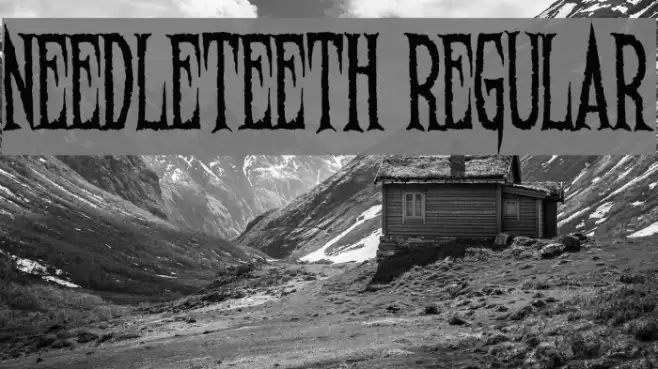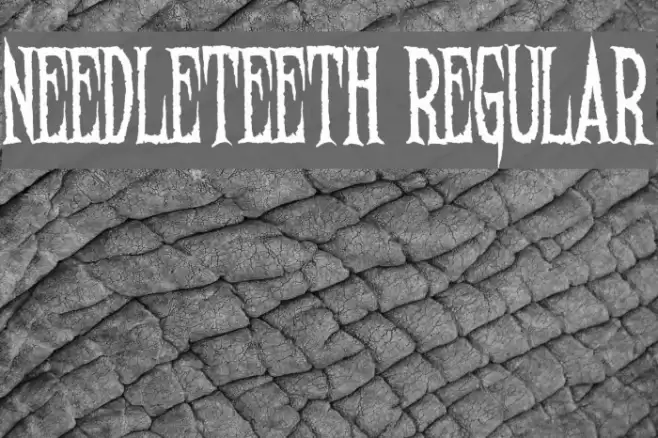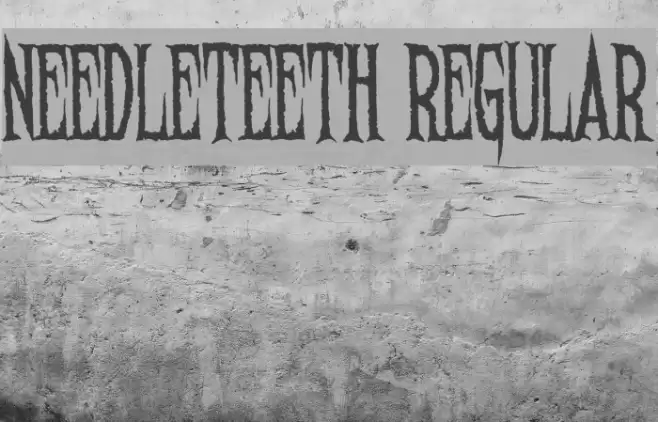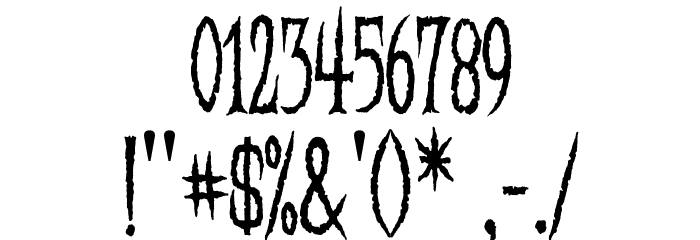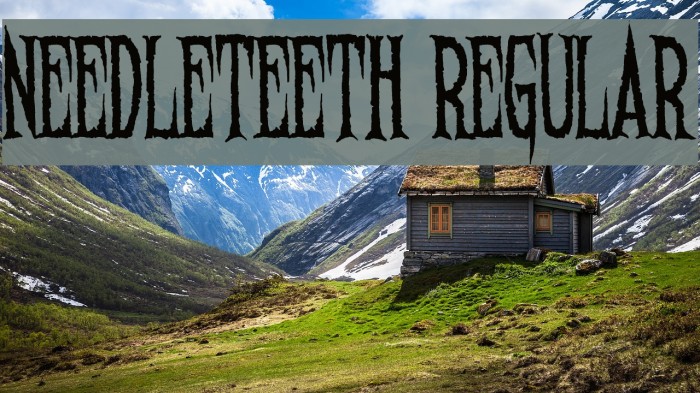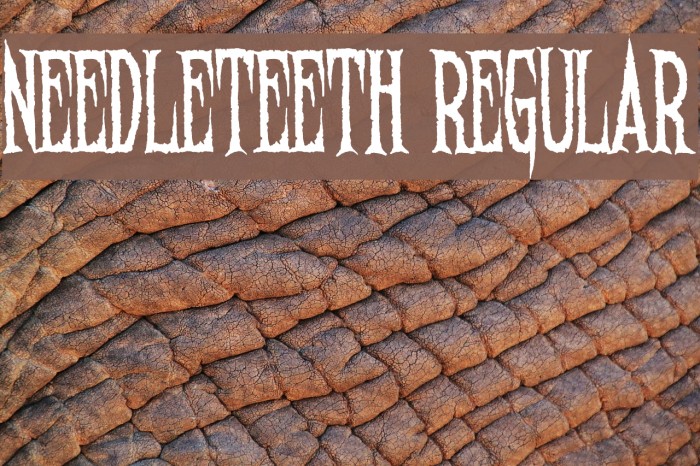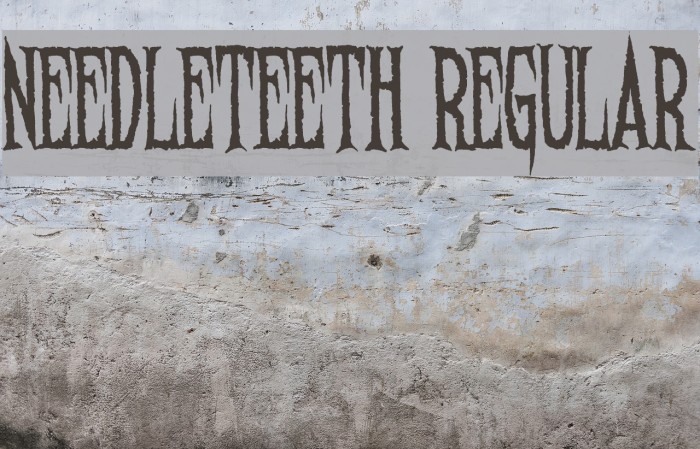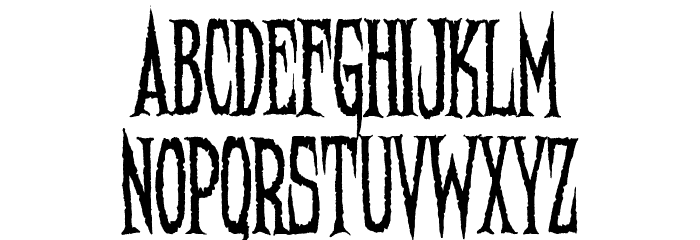
Needleteeth Regular Font
Needleteeth Regular Description
This font features a sharp, jagged design that gives it a distinct, edgy appearance. The characters are elongated and pointed, resembling teeth, which contributes to its unique and somewhat aggressive style. The uppercase and lowercase letters maintain a consistent height, creating a uniform look across the text. The numbers and special characters follow the same aesthetic, ensuring cohesion throughout. This font's design is highly decorative, making it stand out in any context where a bold statement is needed.
A sharp, jagged font with elongated, tooth-like characters for a bold, edgy look from Drippy fonts.
- Proposed Projects: Ideal for horror-themed designs, edgy posters, album covers, or any project requiring a striking, unconventional typeface.
- Character Spacing: Tight